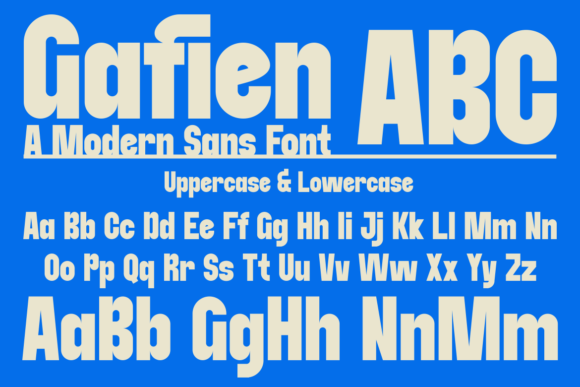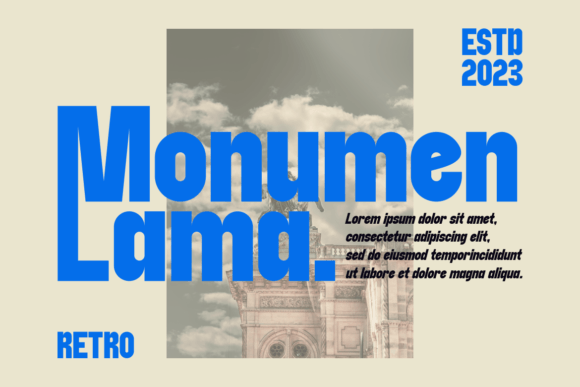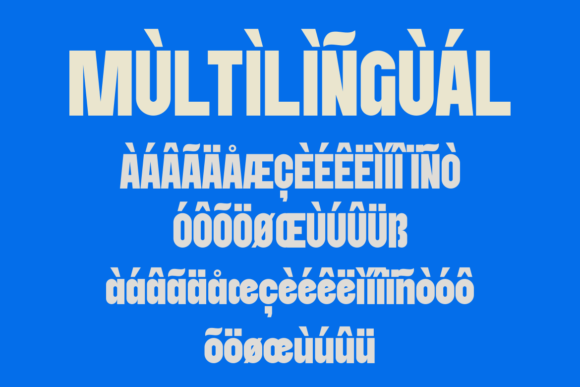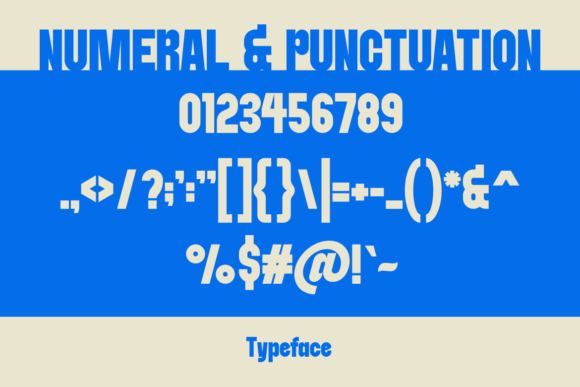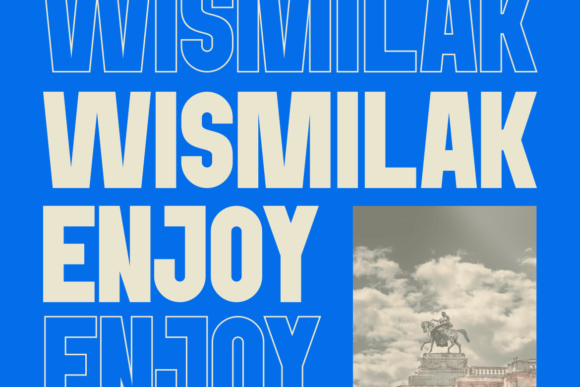
Introducing Gafien Font: The Modern Display Font for Bold Branding
In the world of design, fonts play a crucial role in creating a lasting impression. A well-chosen font can elevate your brand’s visual identity and make it stand out from the competition. Today, we’re excited to introduce Gafien Font, a modern display font that’s perfect for designers and crafters looking to add a touch of boldness and authenticity to their branding projects.
What is Gafien Font?
Gafien Font is a bold and authentic display font designed to make a statement. Its unique and modern style makes it suitable for a wide range of contexts, from logos and product templates to packaging and advertising materials. Whether you’re working on a personal project or a client’s, Gafien Font is sure to impress.
Key Features of Gafien Font
- Bold and Authentic: Gafien Font is designed to be bold and authentic, making it perfect for creating eye-catching headlines and titles.
- Modern Style: The font features a modern style that’s perfect for contemporary branding projects.
- Versatile: Gafien Font can be used in a wide range of contexts, from logos and product templates to packaging and advertising materials.
- Easily Readable: Despite its bold style, Gafien Font is easily readable, making it perfect for use in various design projects.
Why Choose Gafien Font?
With so many fonts available, why choose Gafien Font? Here are just a few reasons why designers and crafters are falling in love with this modern display font:
- Unique Style: Gafien Font has a unique style that sets it apart from other fonts. Its bold and authentic design makes it perfect for creating eye-catching headlines and titles.
- Time-Saving: With Gafien Font, you can save time and effort in your design projects. Its easily readable style makes it perfect for use in various design projects, from logos to packaging materials.
- High-Quality: Gafien Font is a high-quality font that’s designed to deliver exceptional results. Its modern style and bold design make it perfect for creating professional-looking design projects.
How to Use Gafien Font
Using Gafien Font is easy. Here are just a few ways you can incorporate it into your design projects:
- Logos: Use Gafien Font to create bold and eye-catching logos that make a lasting impression.
- Product Templates: Gafien Font is perfect for use in product templates, from packaging materials to advertising materials.
- Headlines and Titles: Use Gafien Font to create bold and eye-catching headlines and titles that grab attention.
In conclusion, Gafien Font is a modern display font that’s perfect for designers and crafters looking to add a touch of boldness and authenticity to their branding projects. Its unique style, versatility, and high-quality design make it an excellent choice for a wide range of contexts. Whether you’re working on a personal project or a client’s, Gafien Font is sure to impress. So why wait? Download Gafien Font today and take your design projects to the next level!